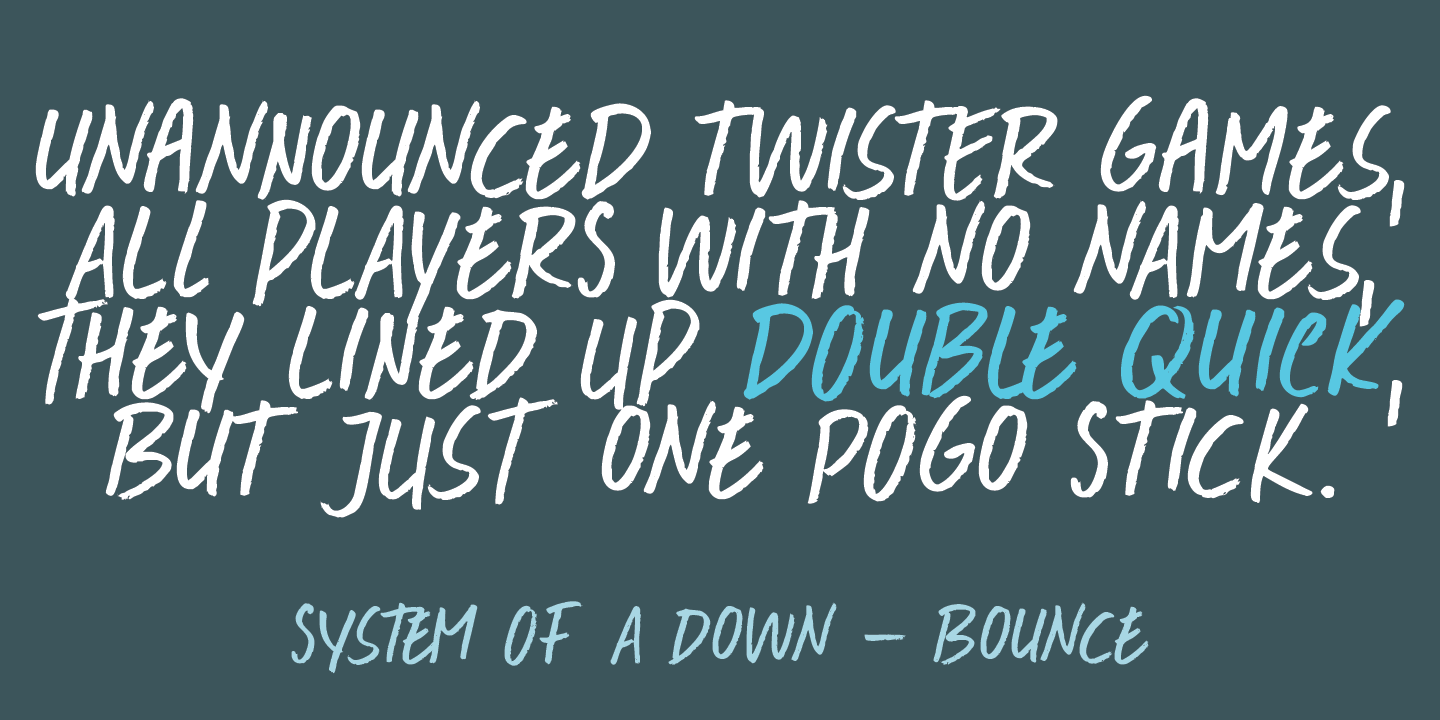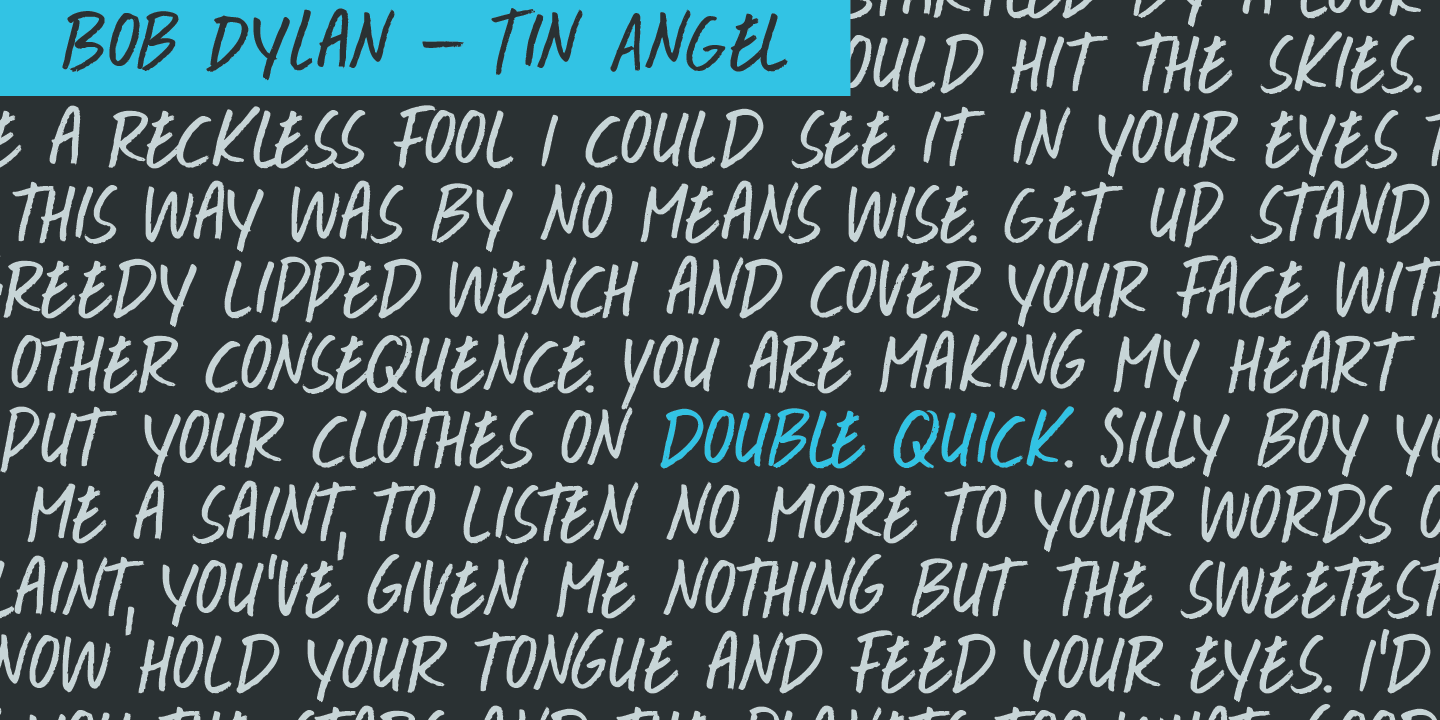
Double Quick
Font Family by Hanoded
Double Quick is a fast, handwritten font with excellent legibility. It was designed to look like a quick grocery list, a hasty ?I Love You? note penned down on a Post-it or a home improvement to-do list. Comes with extensive language support.